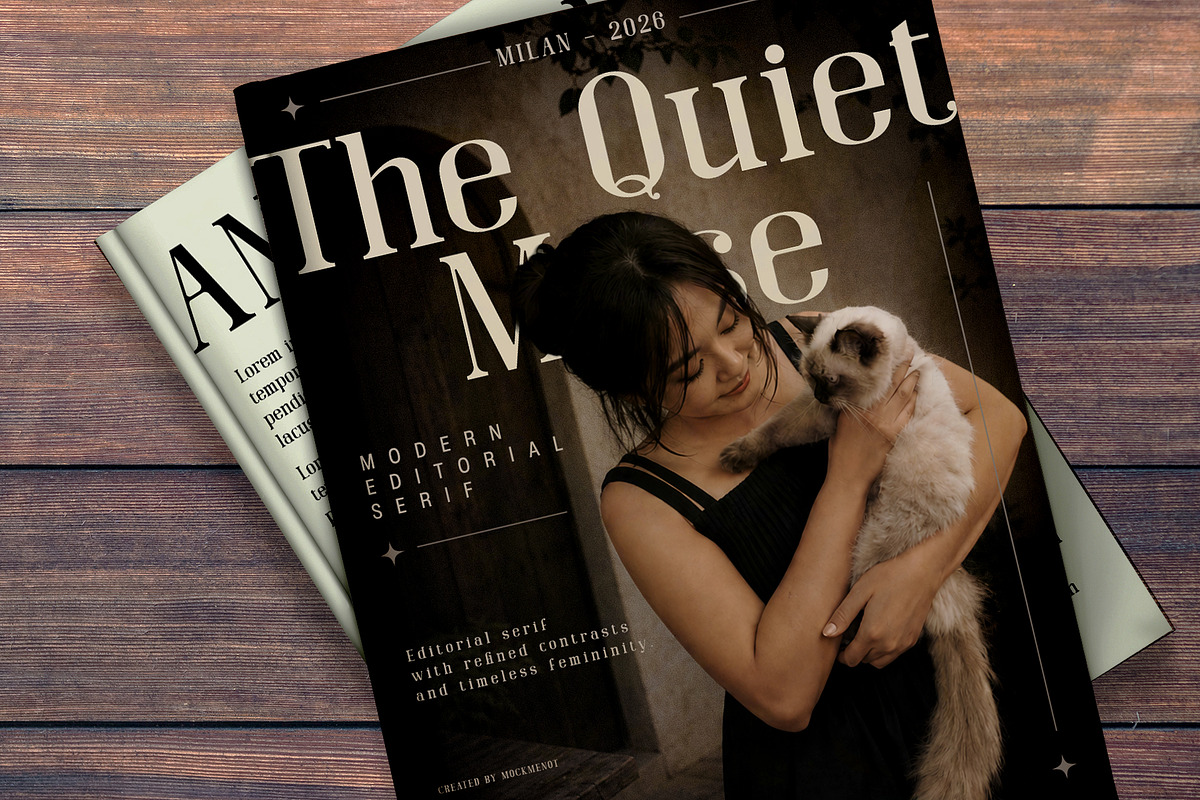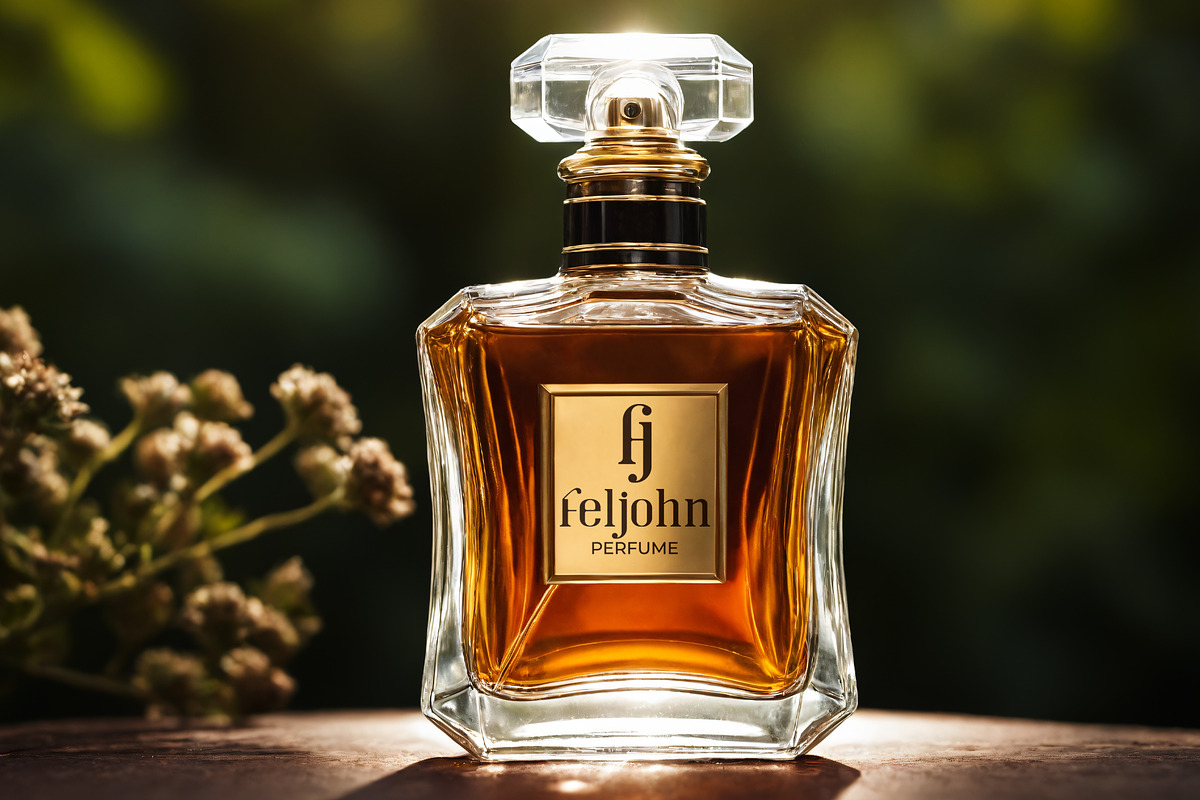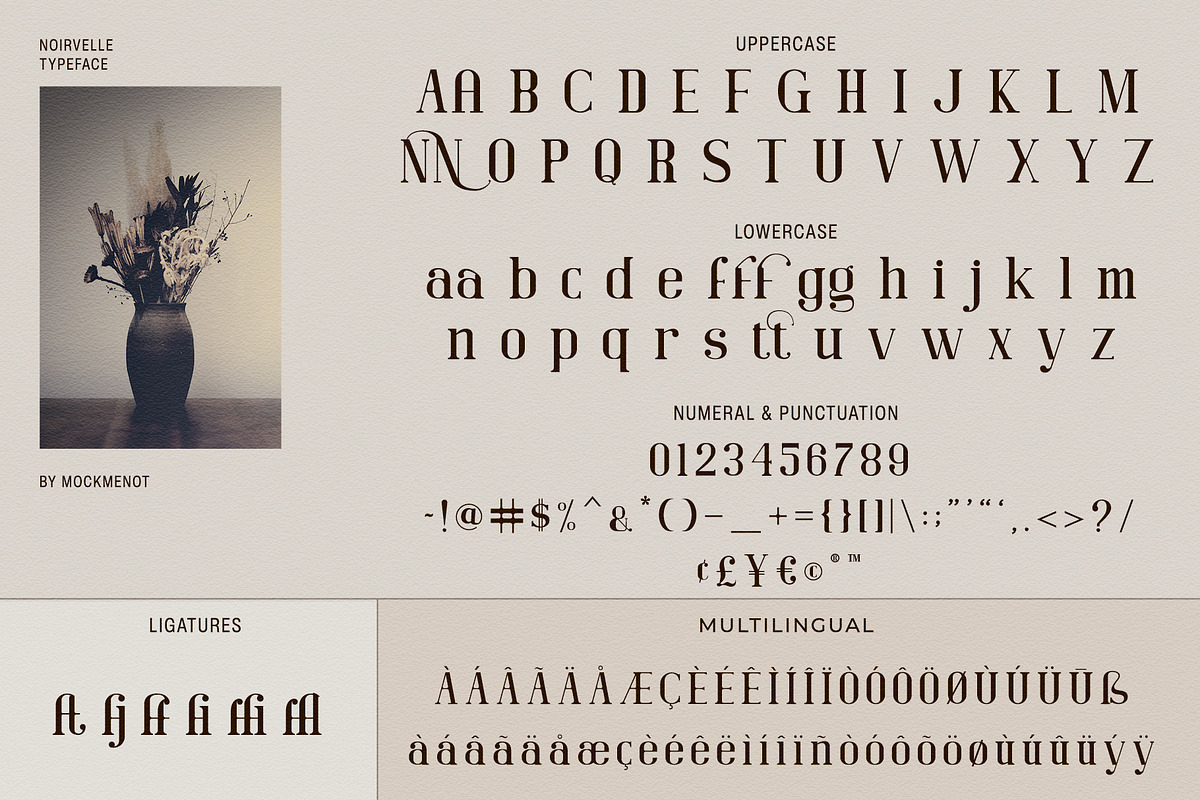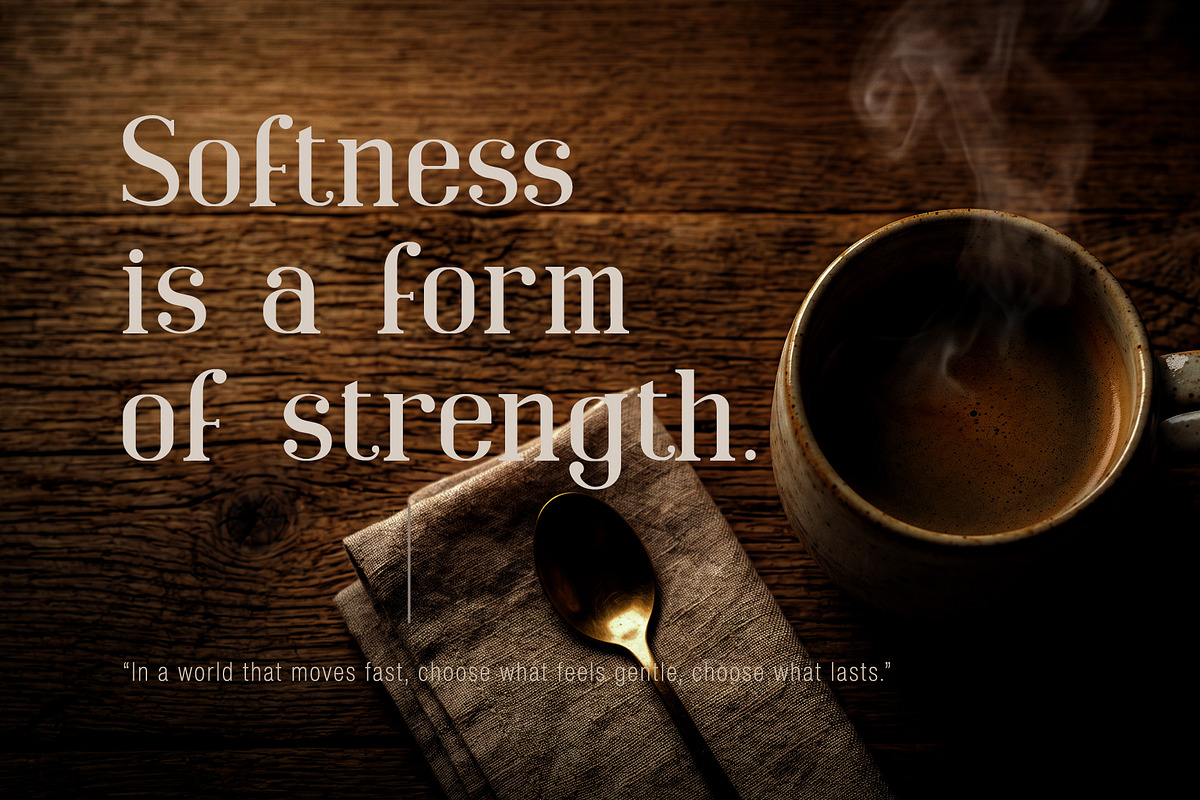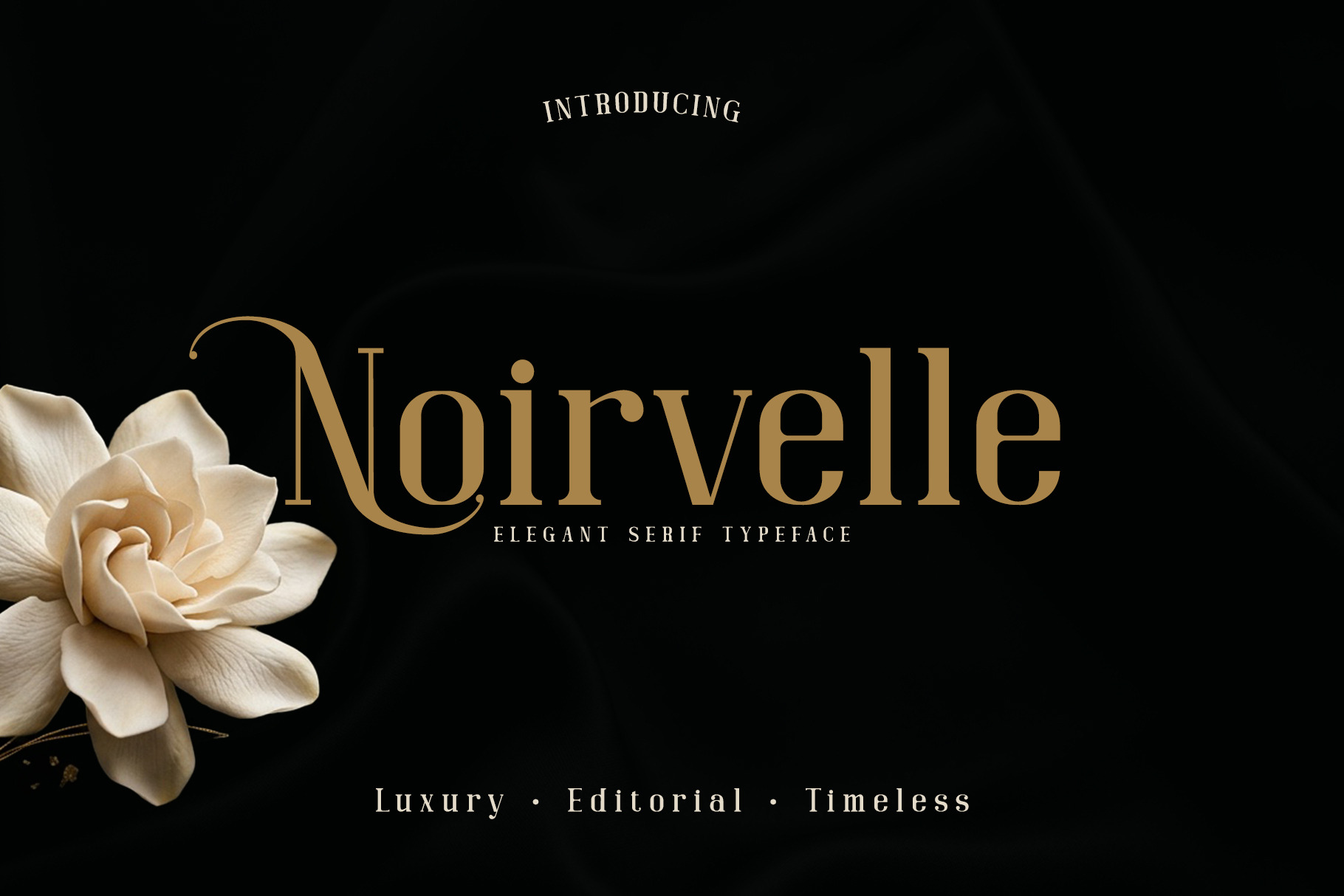
Noirvelle - Modern Serif Typeface
NOIRVELLE is a modern editorial serif inspired by quiet luxury, romantic elegance, and timeless Parisian aesthetics. With graceful contrasts and refined details, this typeface is perfect for fashion branding, editorials, luxury packaging, wedding designs, and sophisticated visual storytelling.